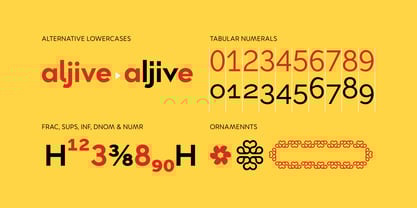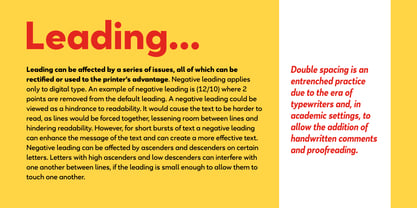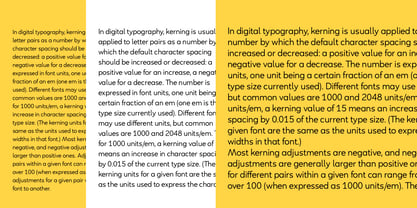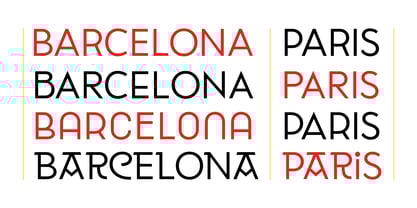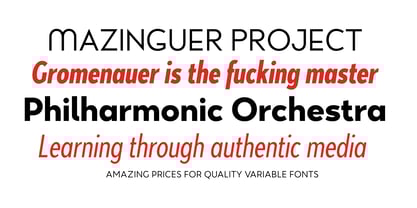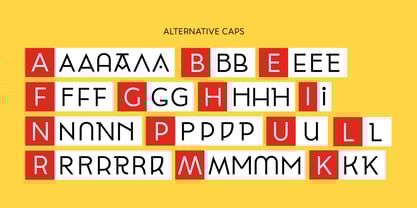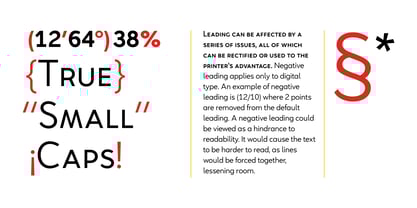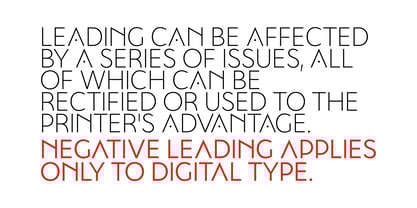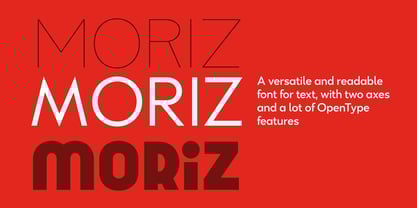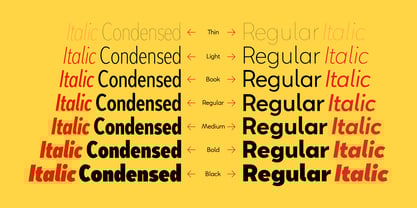
Moriz
The Moriz Font Family was designed by Josep Patau Bellart and published by Tipo Pèpel. Moriz contains 44 styles and family package options. More about this family
Geometric forcefulness in your hands, inspired by the aesthetics of the thirties, on the labels of the most famous spanish beer, Moriz. A tribute to success and purity of form.
Although its design is based on the idea of its main use in running text, hence the familiarity of its shapes and the generosity of its eye, which offers absolute legibility, we have given you the option of customizing your headlines by incorporating a large number of stylistic alternatives for the capital letters and for some of the lowercase letters. And as usual in this house, a complete set of small caps.
You will be able to play with its two axes, width and weight, to adapt to complex hierarchies in varied line widths and needs of arracades and highlights.